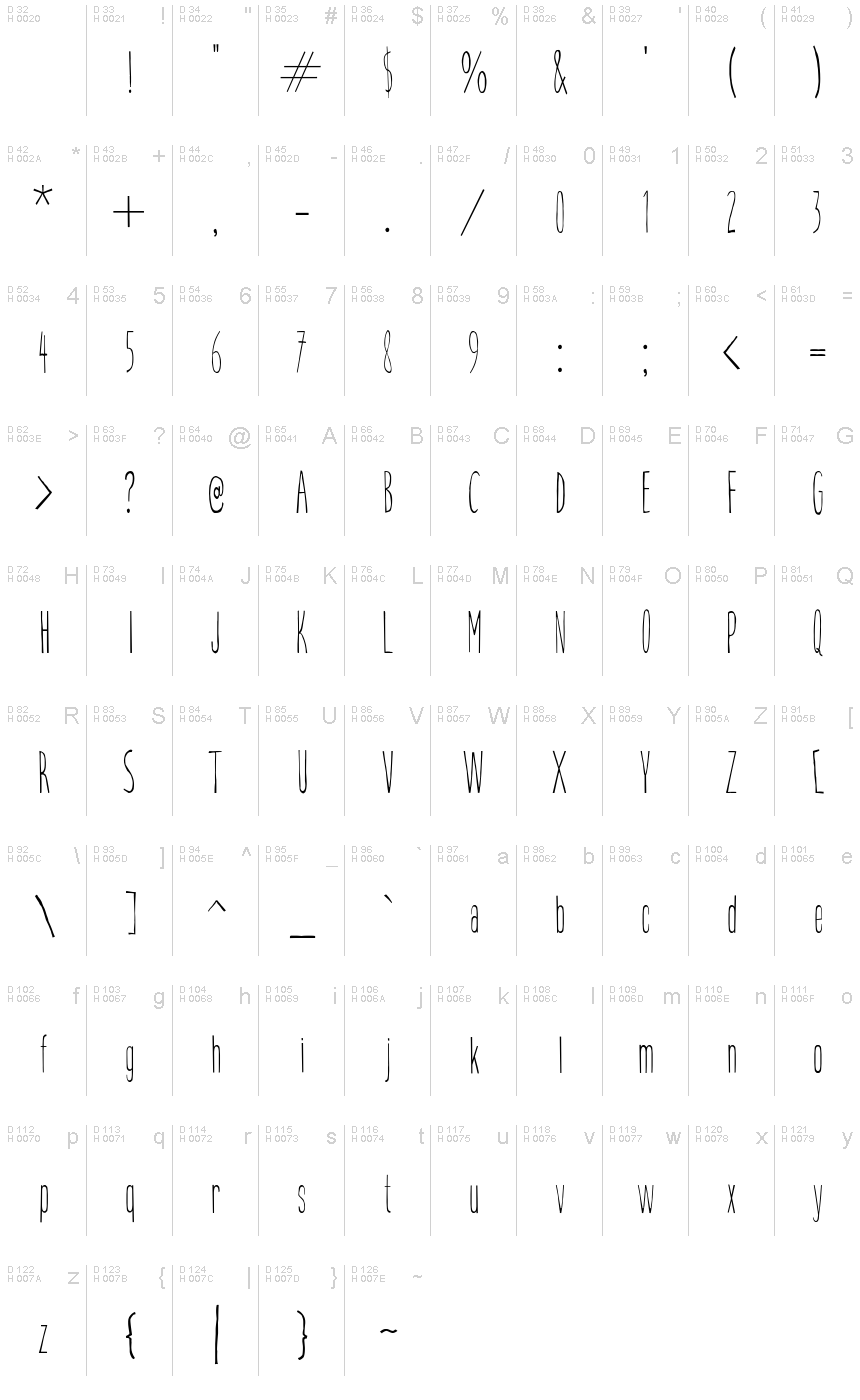
Cartoon 2 Movies
Cartoon 2 Movies, a captivating handwritten font crafted by Galdino Otten Fonts, exudes a whimsical charm that transports the viewer into a world of enchantment. With its light, condensed strokes, this font effortlessly captures the essence of classic animated films, evoking a sense of nostalgia and playfulness.
The Cartoon 2 Movies font's distinctive style lends itself seamlessly to a wide range of design applications, from vibrant movie posters and book covers to engaging social media graphics and product packaging. Its versatility makes it an ideal choice for projects seeking to capture a playful, lighthearted aesthetic, whether in the realm of branding, advertising, or creative content.